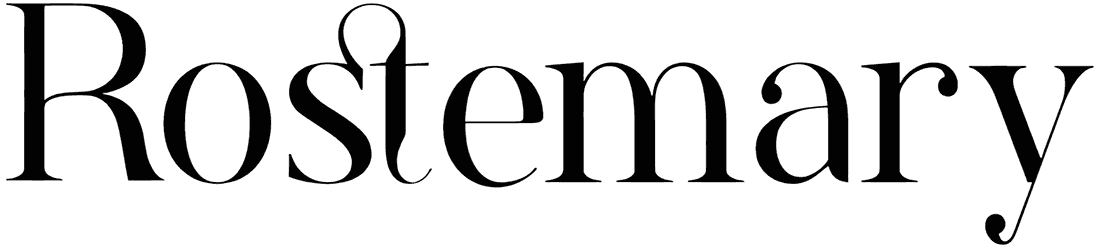
Rostemary Font
Introducing Rostemary, a beautiful serif font with a classic and professional touch. It comes with excellent readability and a complete set of characters except for most punctuation. By using this real estate font, you can make your work awesome and confident. It’s perfect for wedding invitations, branding designs, book or magazine covers, business cards, and advertising materials.